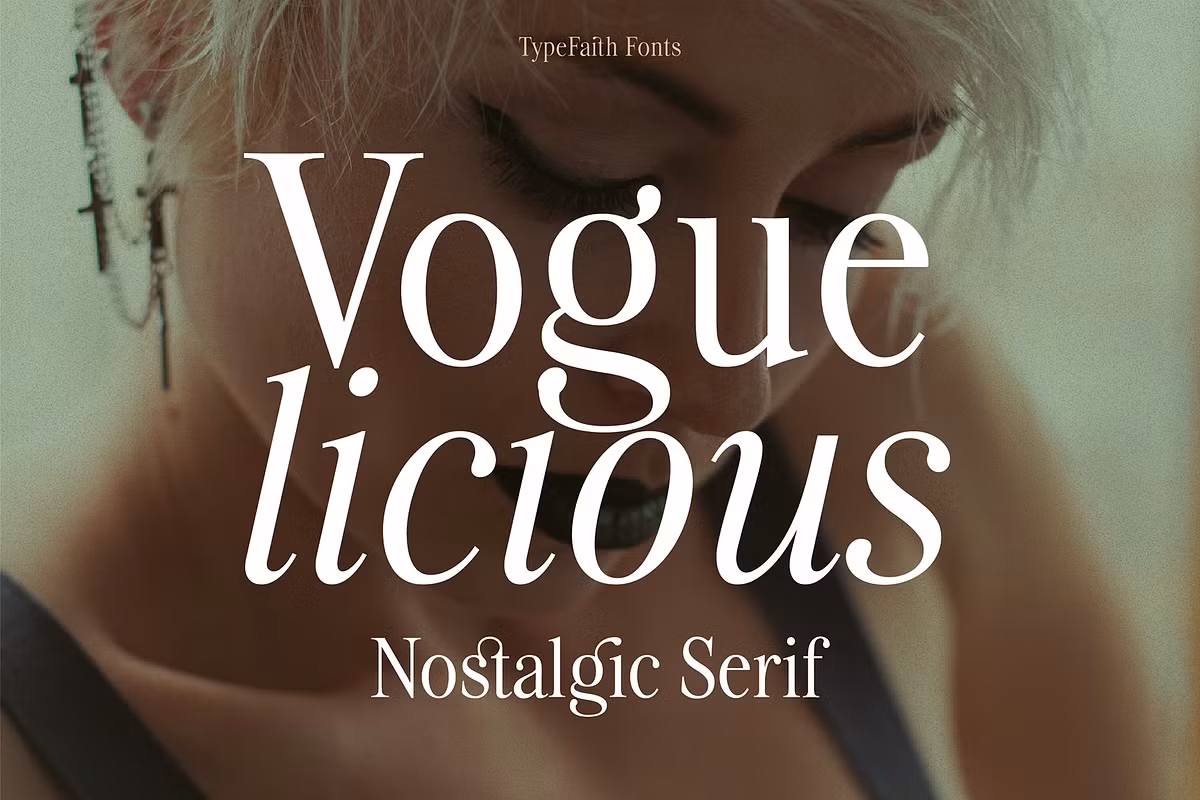
The Voguelicious Font Free Download is a stylish and elegant typeface designed to bring sophistication and modern flair to your designs. With its sleek, contemporary letterforms and unique style, this font is perfect for creating luxury branding, high-end logos, fashion-related materials, and editorial designs. The Voguelicious font brings a touch of elegance and class to any project, making it ideal for both professional and creative uses. Whether you're designing for a fashion brand, a beauty line, or any upscale project, this font will elevate your typography with its refined and polished look. Please note, for commercial use, a license purchase is required. However, you can easily download the Voguelicious Font Free Download for free for personal use and experiment with its beauty. Download the Voguelicious Font Free Download today and add a stylish, chic element to your creative designs.